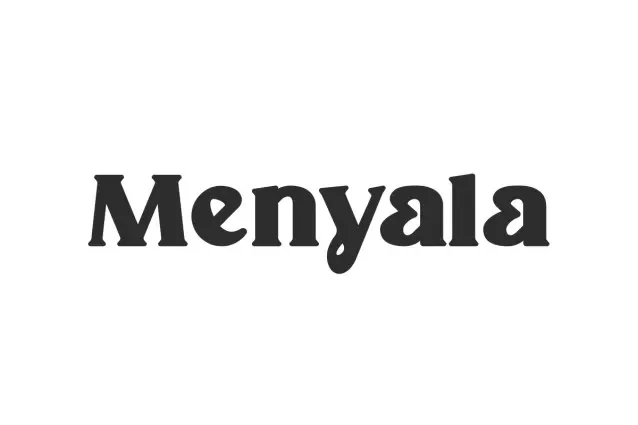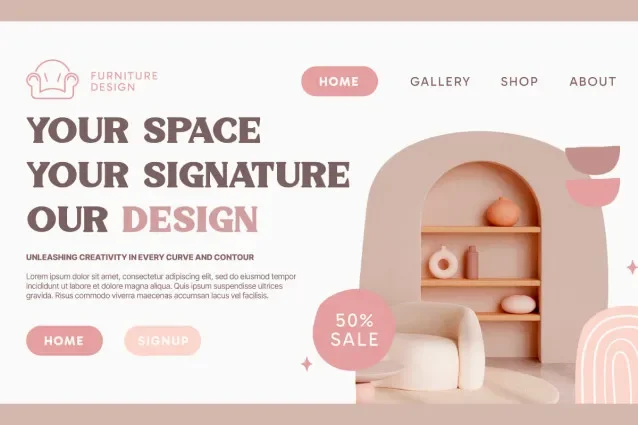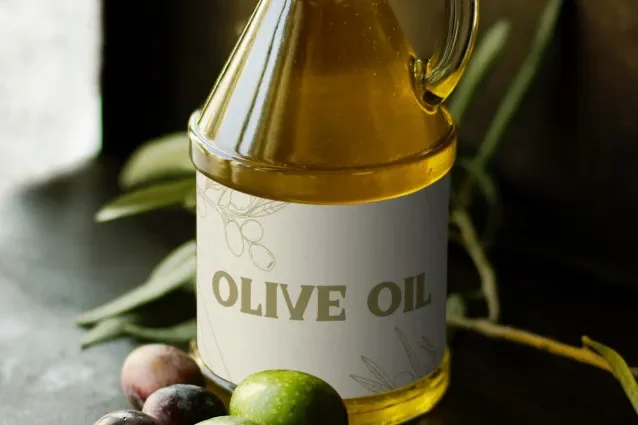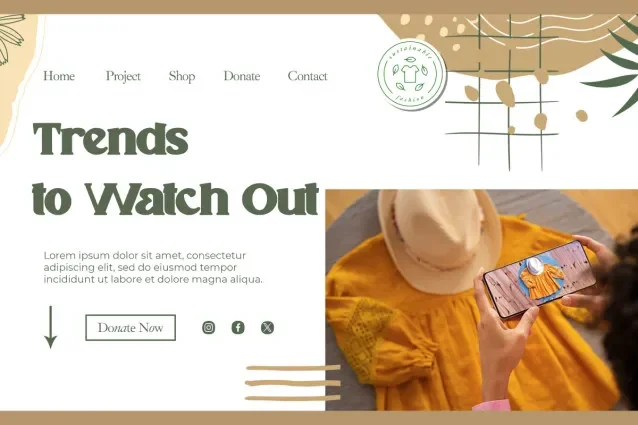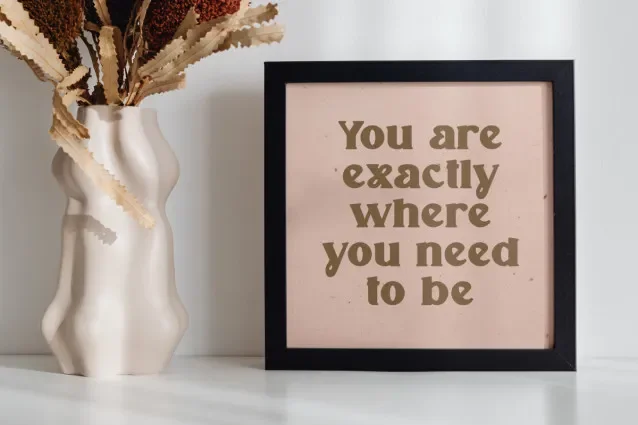
Menyala Font helps designers add a handwritten feel to branding and digital signatures without losing clarity. Its script lettering works well on logos, product labels, and wedding invitations where a natural writing rhythm supports a personal tone.
Menyala Font is a modern script typeface with smooth curves, connected strokes, and balanced slants. Its letters include gentle transitions from thin to thick lines, giving each word a clear flow. Some versions include ligatures and stylistic alternates, which allow more flexible logo or headline layouts.
Use Menyala Font for signature-style logos, event stationery, and social media graphics. For readability, pair it with a clean sans-serif for body text or menu descriptions. The script style performs best in larger sizes where the curved strokes stay easy to read.